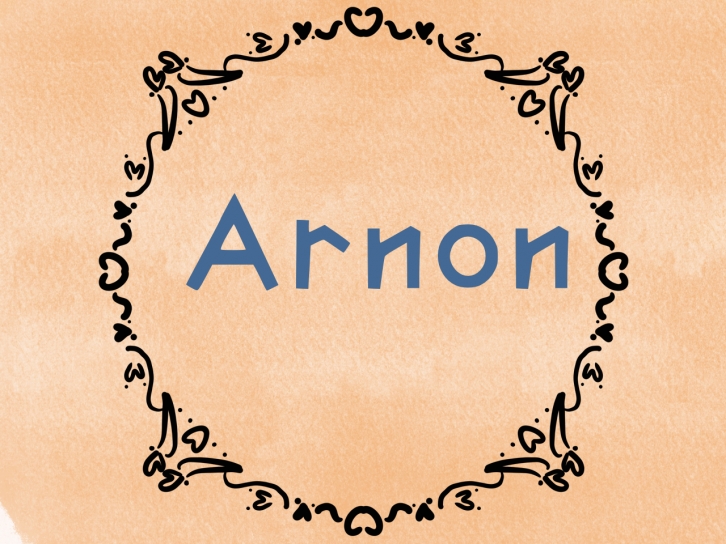
font lettering calligraphy Used in designing cards, invitation cards, media to make a difference Character design work from the concept of hand writing by applying different brushes. Make the font design work different. Have their own uniqueness this font design can be used Increase the prominence of your work, whether you use it in a letter. Design greeting cards, wedding cards, etc. Make your letters look different. With this designed font, your work will be highlighted with the novelty of the font. Strange artistic characters You can choose to use the typography design artwork at your convenience. Thank you and hope you enjoy the font design art.